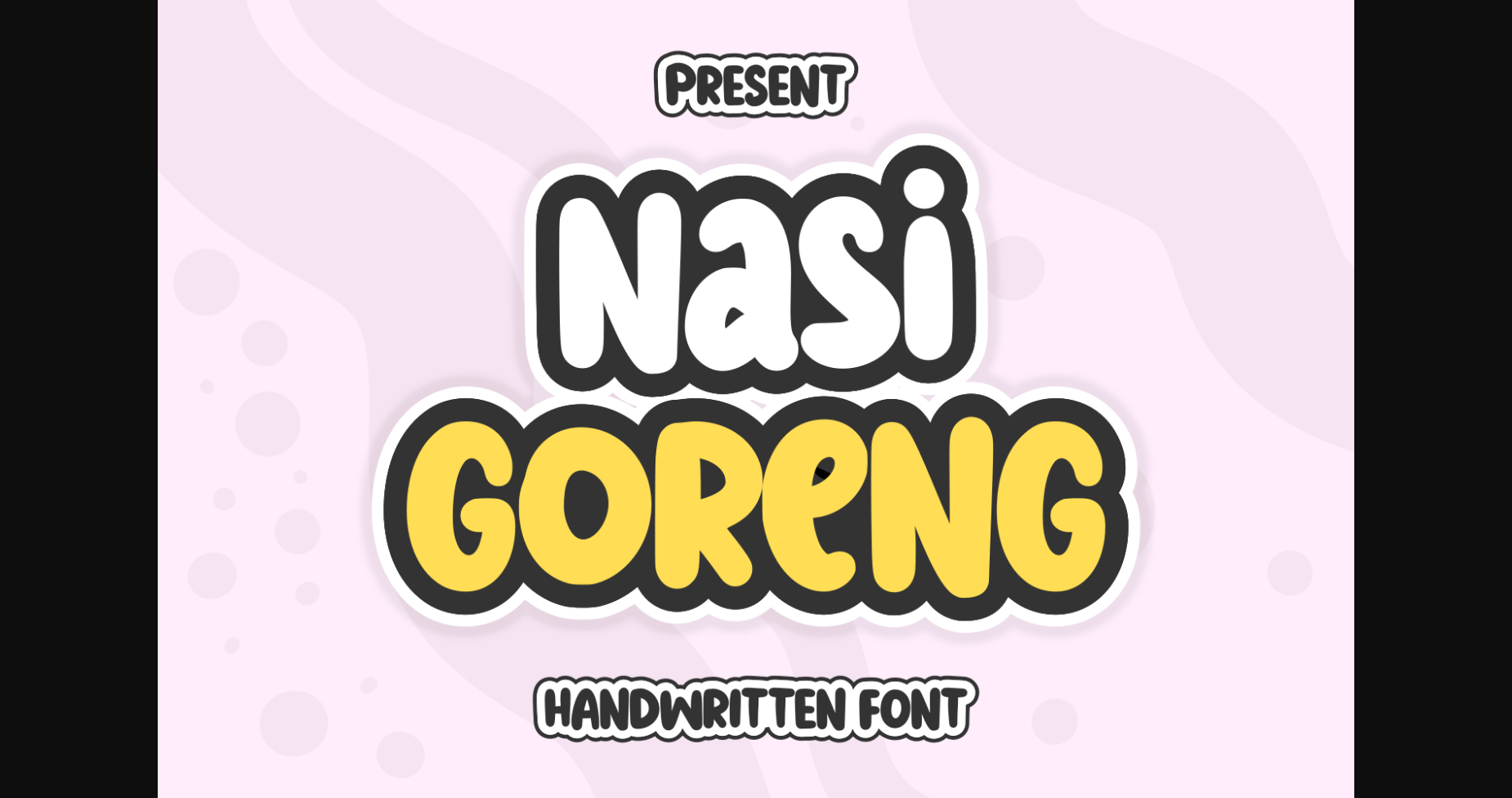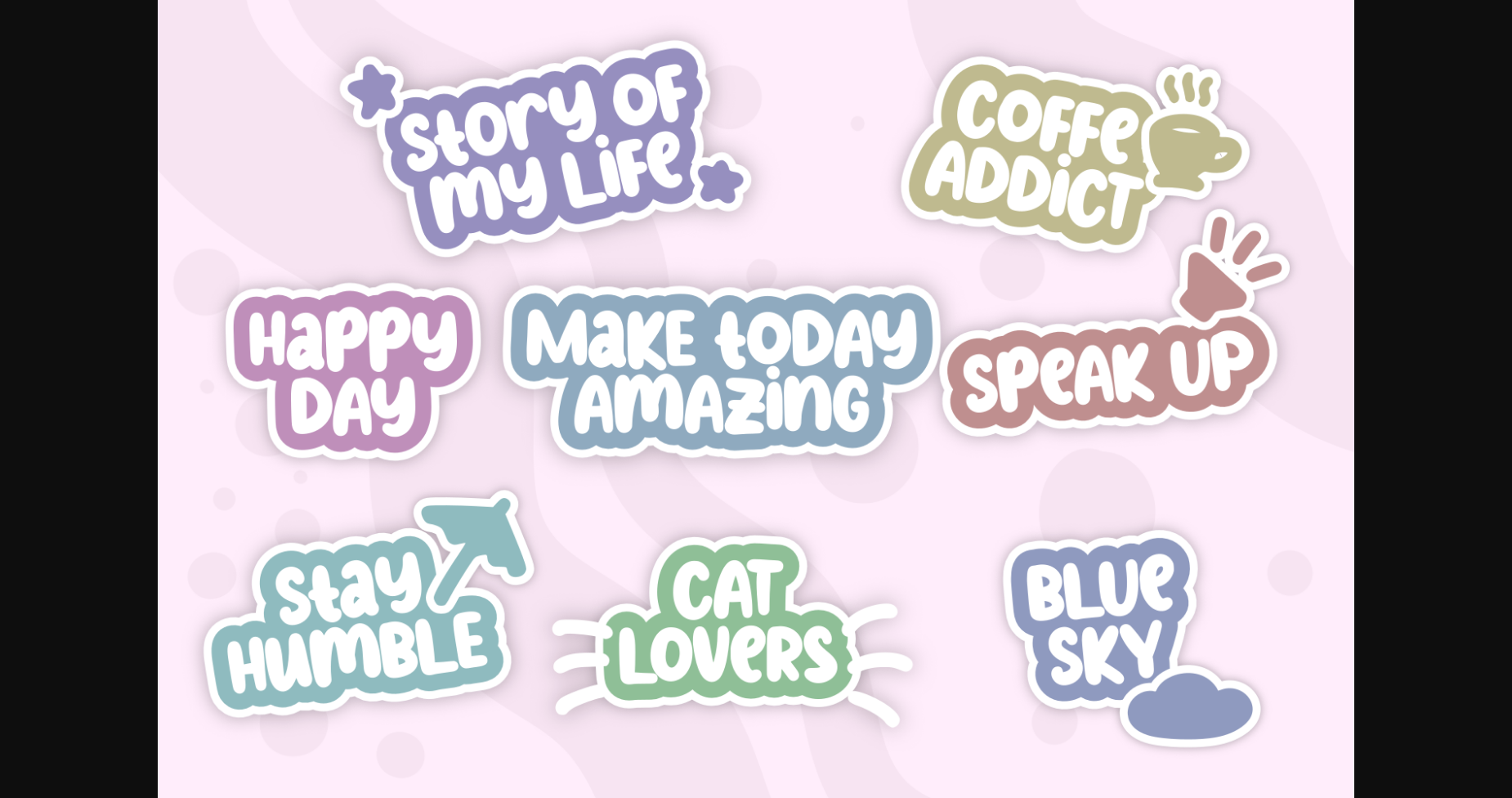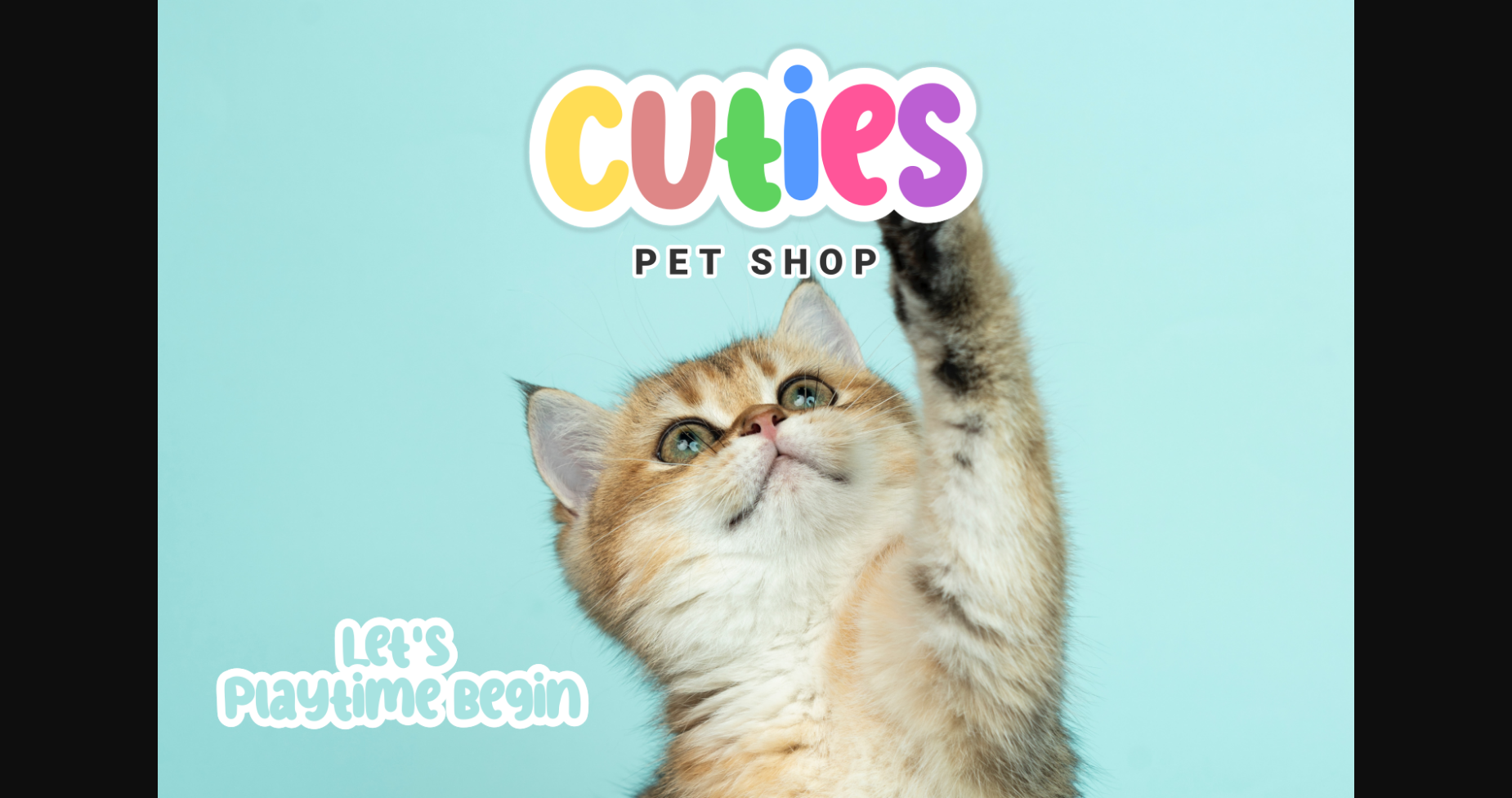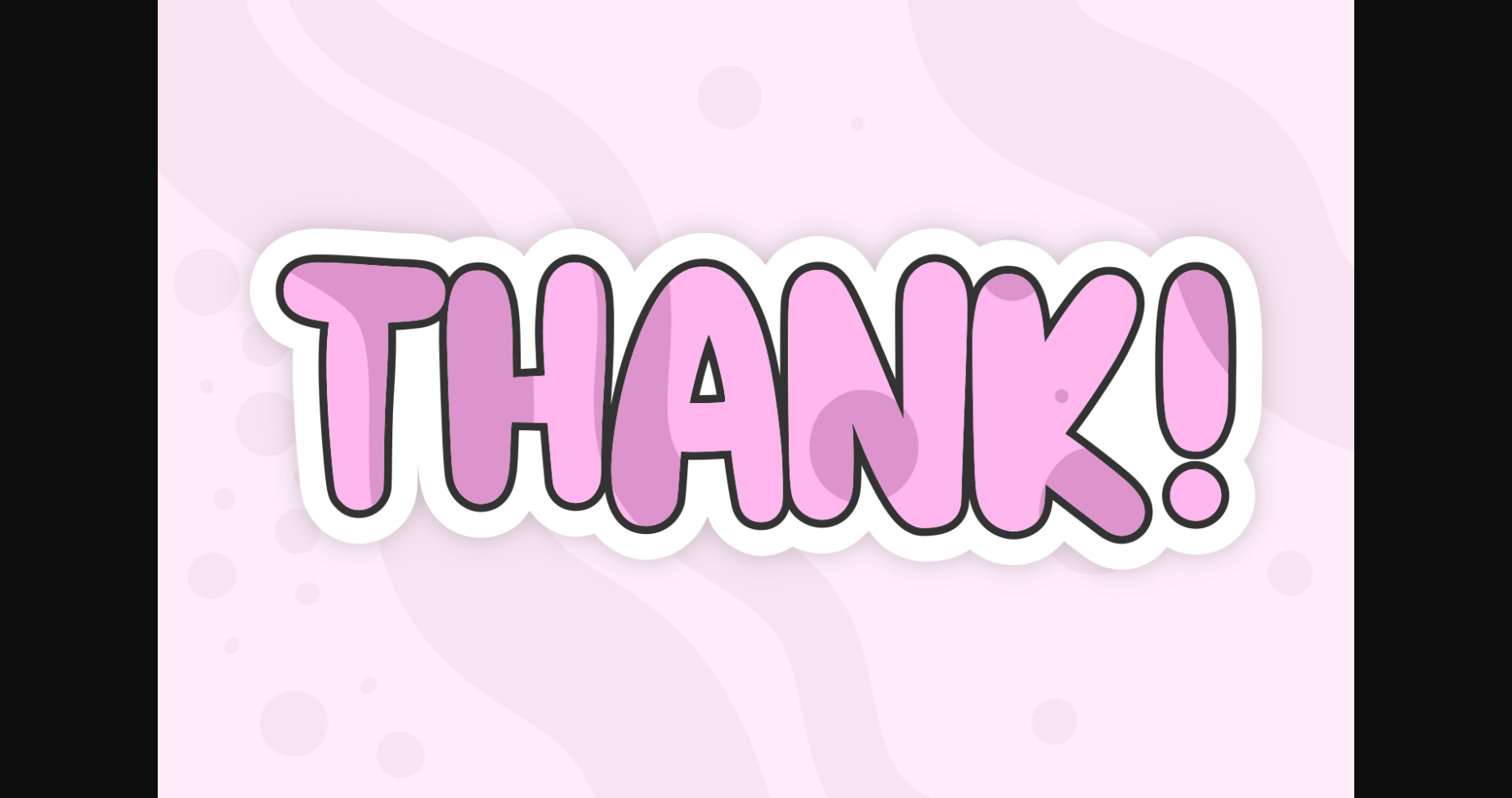
Nasi Goreng Font
About Nasi Goreng Font
Nasi Goreng is a fun sans serif font. Great for a design that requires a playful accent. Perfect for sticker designs, book covers or branding. This font is PUA encoded which means you can access all glyphs and swashes with ease!